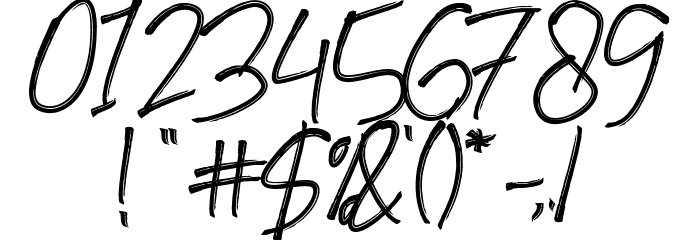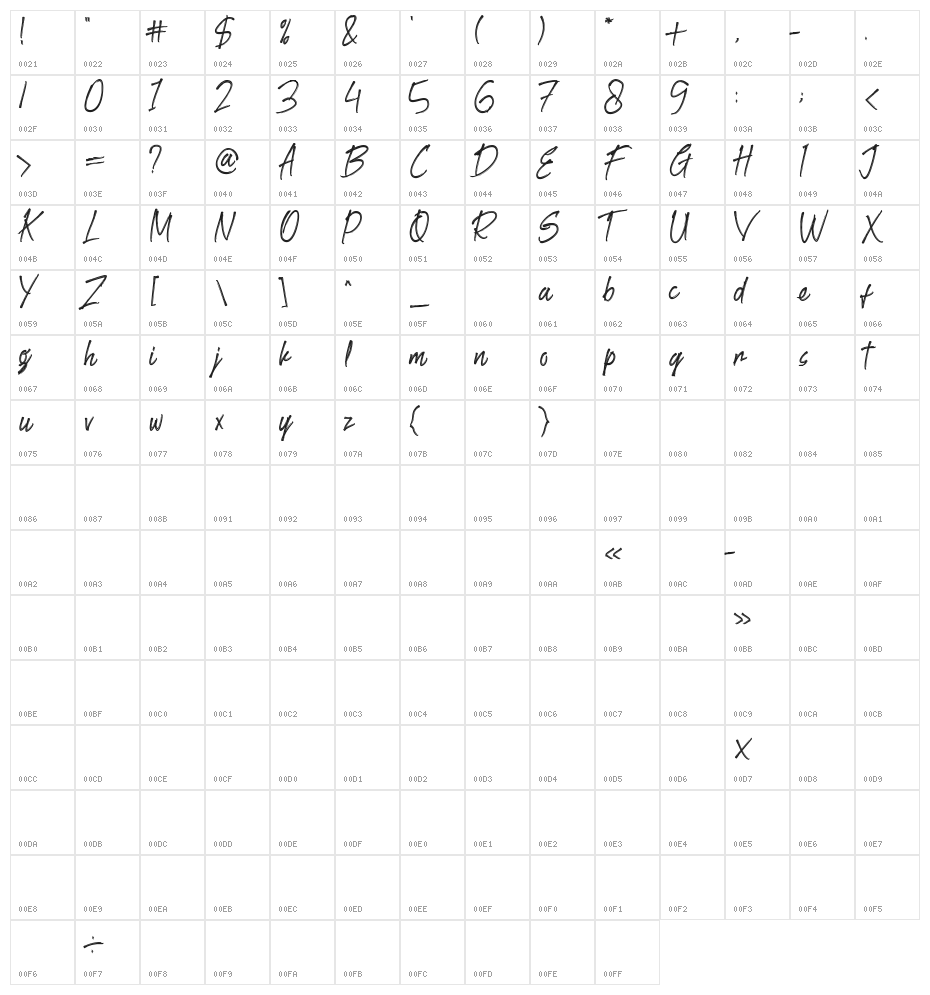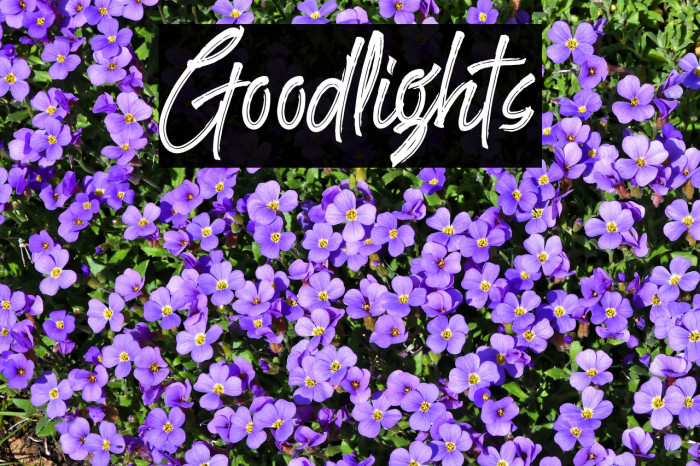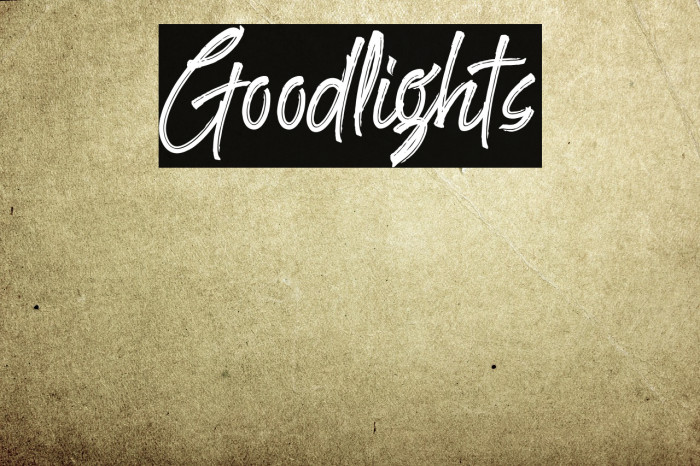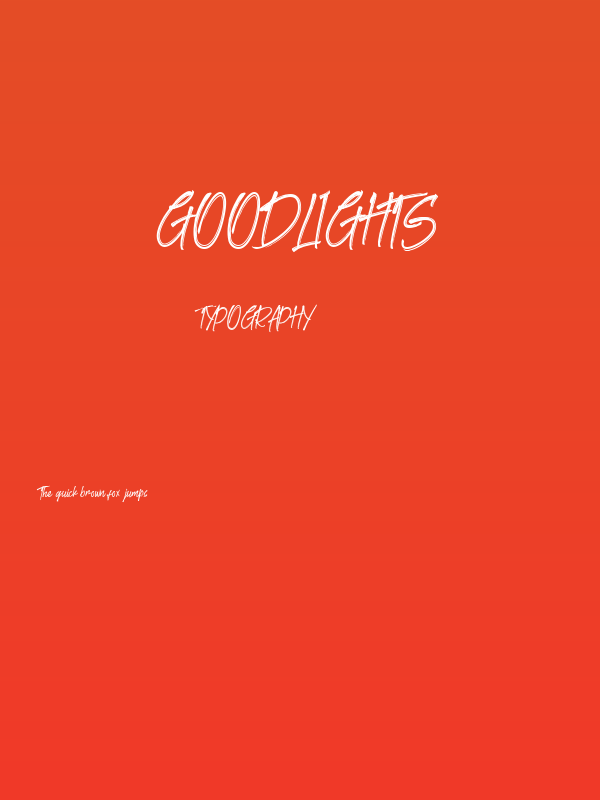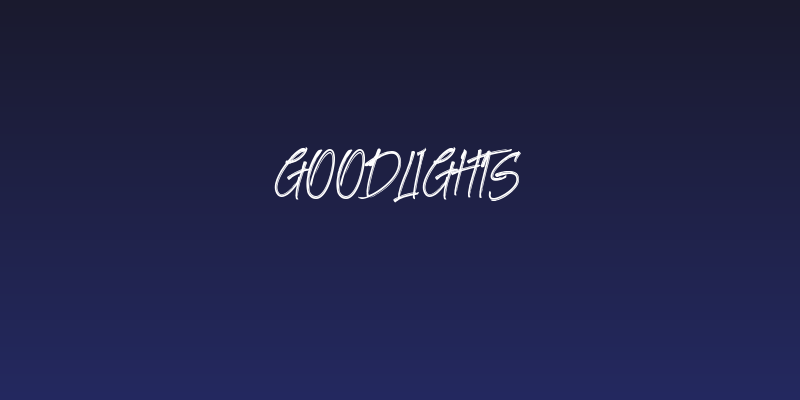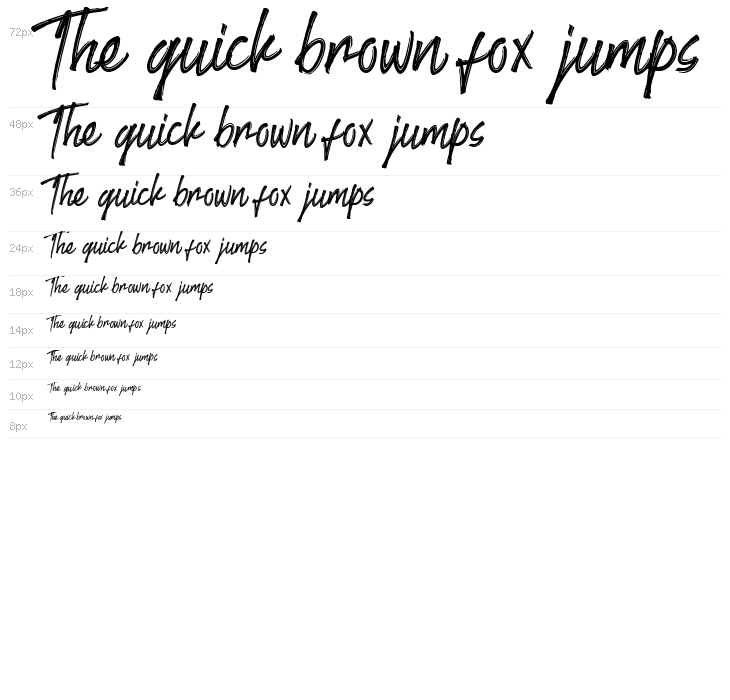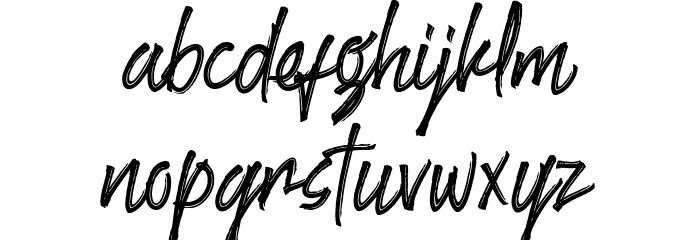
Goodlights Font
Goodlights Description
This font exudes a dynamic and energetic vibe, characterized by its handwritten style that mimics the fluidity and spontaneity of natural handwriting. The strokes are bold and slightly irregular, giving it a personal and authentic touch. The uppercase letters are tall and slightly slanted, while the lowercase letters maintain a consistent flow, enhancing readability despite the casual appearance. Numbers and special characters follow the same lively style, ensuring a cohesive look across all text elements. The overall impression is one of creativity and expressiveness, making it suitable for projects that require a personal or artistic flair.
| Proposed Projects | Ideal for creative projects such as greeting cards, invitations, personal branding, artistic posters, and social media graphics. |